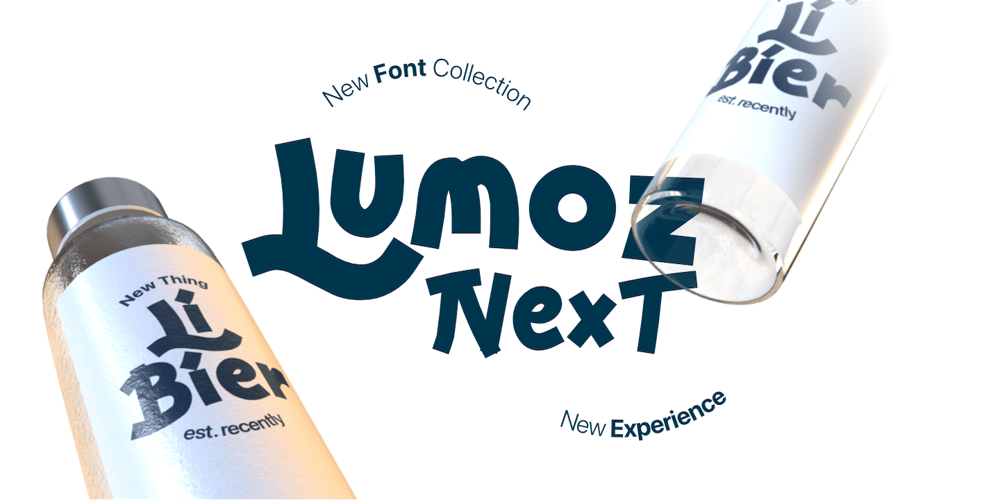
Lumoz Font Family was designed by Wahyu Eka Prasetya, Afiat Sukmaraga and published by Hati. Lumoz contains 1 styles and family package options. Lumoz. Consider this font that feels like a breeze on a sunny day. Its relaxed yet clear design makes it ideal for conveying a friendly tone, whether in digital communications or printed materials.